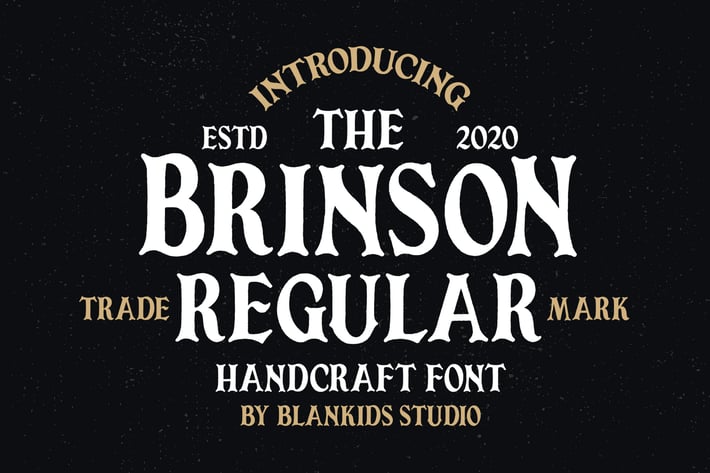
Brinson Regular - Vintage Serif Font
Introducing a new Font called Brinson Regular Vintage Serif Font. Brinson Regular inspired from vintage style good for signature, logotype, poster, social media, book cover, tshirt design, packaging and any more.